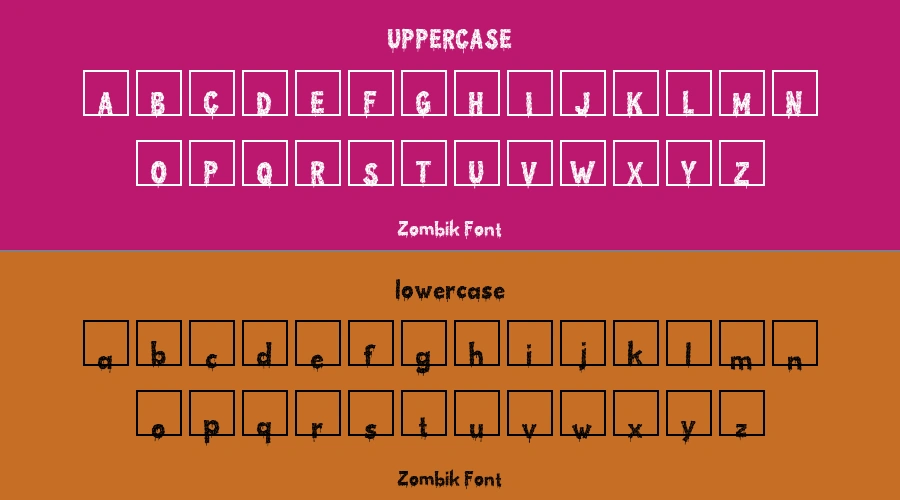
About Zombik Font
Zombik Font represents a sophisticated approach to type design, balancing teardrop terminals with recall value. Perfect for packaging hero, this font family showcases impressive functionality and traditional values throughout its character set. Designers appreciate its versatility and reliability.
Designers will appreciate nuanced touches including engineered curves and expert sets, adding sophistication to any project. These features become apparent in advertisements, where data presentation matters most. The careful treatment of bowl width and artistic merit ensures optimal performance.